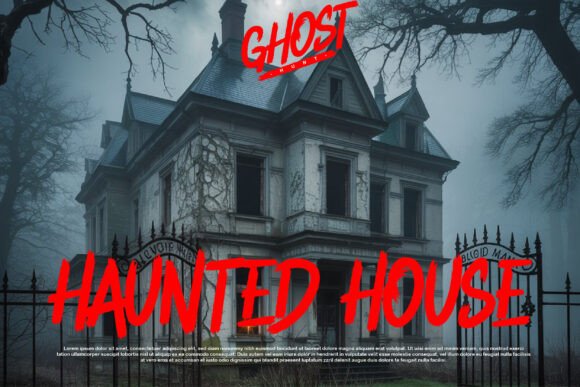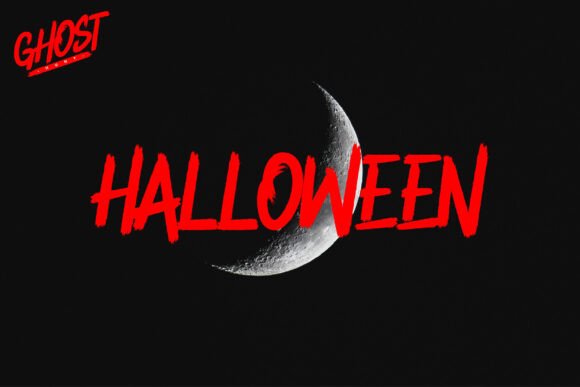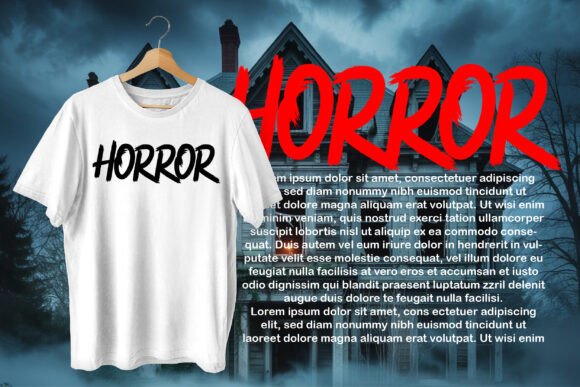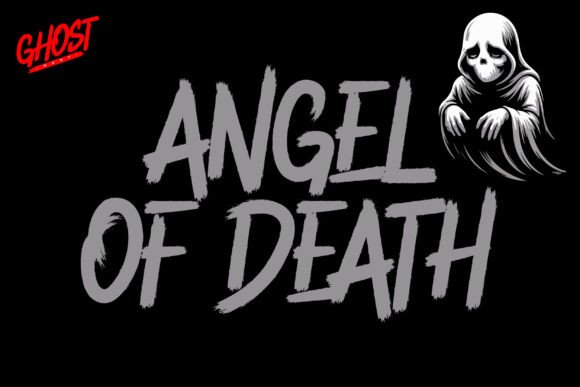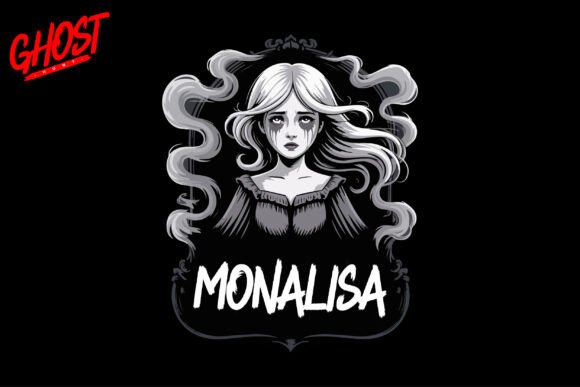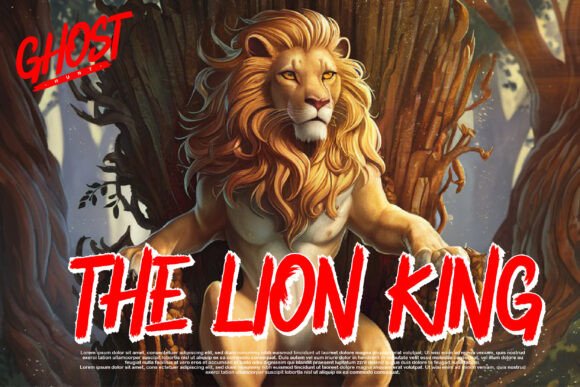
Introducing Ghost Hunt: The Ultimate Spooky Font for Designers and Crafters
Are you ready to add a touch of eerie elegance to your designs? Look no further than Ghost Hunt, an artistically designed Brush Display font that draws inspiration from the dark depths of gothic influences and the chilling corners of horror-themed media. This font is the perfect solution for designers and crafters looking to create spine-chilling style and bring a unique, hand-drawn brush appeal to their projects.
The Inspiration Behind Ghost Hunt
Ghost Hunt is more than just a font – it’s an experience. Imagine walking through a haunted mansion, surrounded by creepy cobwebs, and eerie shadows. That’s the feeling that inspired the creation of Ghost Hunt. The font’s designers aimed to capture the essence of the horror genre and translate it into a typographic style that’s both haunting and beautiful.
What Makes Ghost Hunt Unique?
Ghost Hunt carries an undeniably instant and endearing messy aesthetic that’s perfect for designers and crafters looking to add a touch of whimsy to their projects. The font’s unique hand-drawn brush appeal gives it a distinctive look that’s both eerie and endearing. Whether you’re creating Halloween-themed designs, horror-inspired artwork, or simply want to add a touch of darkness to your projects, Ghost Hunt is the perfect choice.
Perfect for Halloween and Horror-Themed Designs
Ghost Hunt is tailored strikingly to cater to your eerie and Halloween-centric desires. The font effortlessly defines spine-chilling style and is perfect for a wide range of design projects, including:
- Halloween revelries and party decorations
- Horror-themed book cover designs
- Eerie greeting cards and invitations
- Spine-chilling stickers and posters
- Haunting banners and signage
- Wardrobes and printed apparel
Why Choose Ghost Hunt?
So why choose Ghost Hunt over other fonts? Here are just a few reasons why designers and crafters are falling in love with this spooky font:
- Unique and eye-catching design: Ghost Hunt’s hand-drawn brush appeal sets it apart from other fonts and makes it perfect for designers looking to create something truly unique.
- Eerie and atmospheric: The font’s gothic influences and horror-themed inspiration make it perfect for creating spooky and atmospheric designs.
- Versatile: Ghost Hunt can be used for a wide range of design projects, from Halloween-themed designs to horror-inspired artwork.
Tips for Using Ghost Hunt in Your Designs
Here are a few tips for using Ghost Hunt in your designs:
- Experiment with different colors: Ghost Hunt looks great in a range of colors, from bold and bright to dark and muted. Experiment with different colors to find the perfect look for your design.
- Mix and match with other fonts: Ghost Hunt pairs well with a range of other fonts. Try mixing and matching it with other fonts to create a unique and eye-catching design.
- Use it sparingly: Ghost Hunt is a bold and eye-catching font. Use it sparingly to add a touch of eerie elegance to your designs.
Ghost Hunt is a unique and eye-catching font that’s perfect for designers and crafters looking to add a touch of eerie elegance to their projects. With its hand-drawn brush appeal and gothic influences, this font is sure to bring a spine-chilling style to your designs. Whether you’re creating Halloween-themed designs, horror-inspired artwork, or simply want to add a touch of darkness to your projects, Ghost Hunt is the perfect choice. So why wait? Expose your design projects to Ghost Hunt and experience the thrilling rush of horror and Halloween sensations envelop your creations.